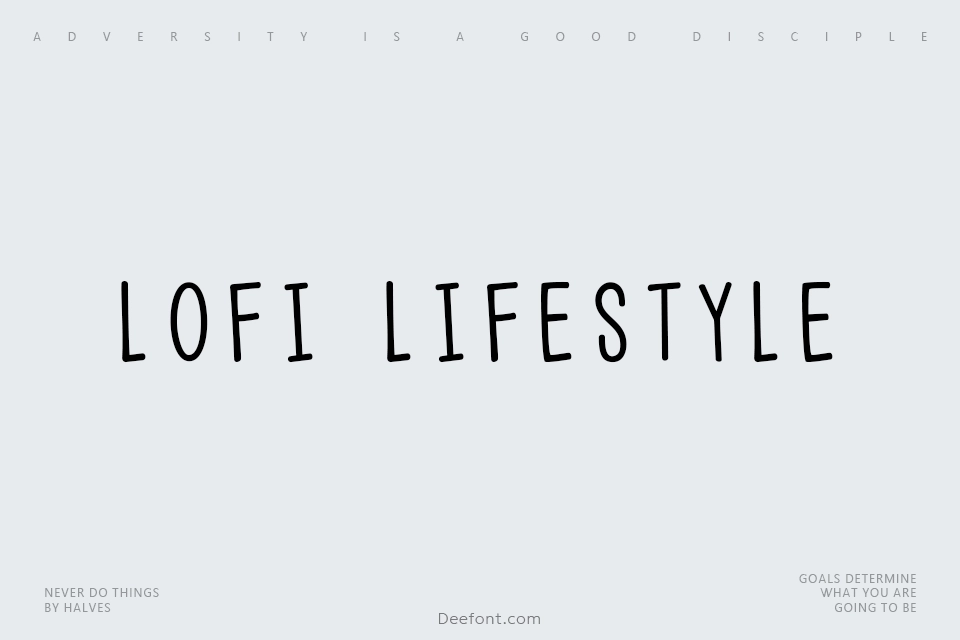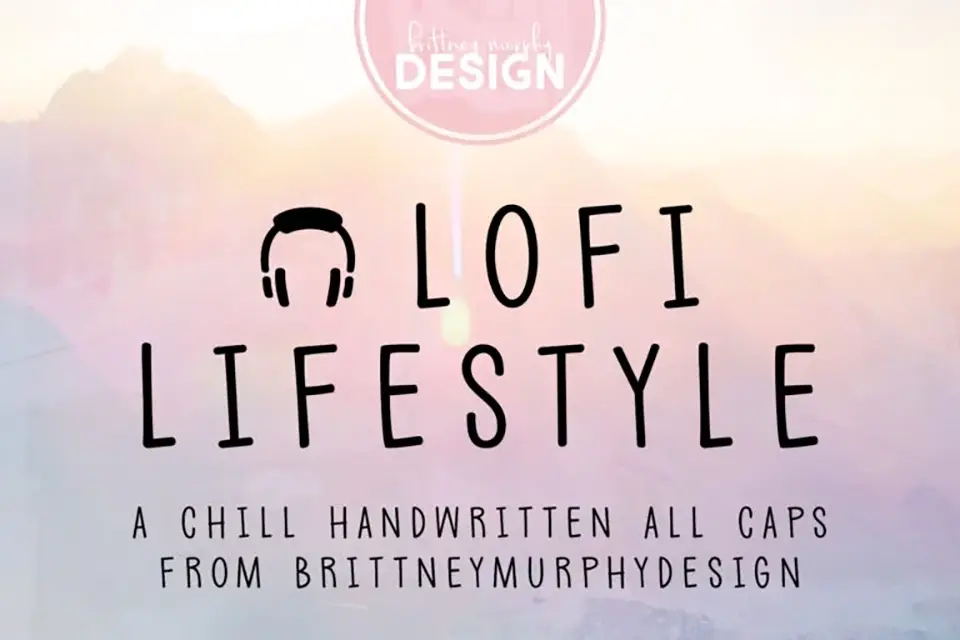
Lofi Lifestyle Font
Lofi Lifestyle is a chill, handwritten, all-caps typeface created in 2022 that brings a casual and understated feeling to your designs. With over 330 glyphs and support for most Latin-based languages, this versatile script font features playful, rounded letters with natural flow and friendly demeanor. Perfect for creative projects including greeting cards, social media graphics, casual branding, and children’s books, it excels at conveying warmth and approachability while balancing bold or aggressive designs.